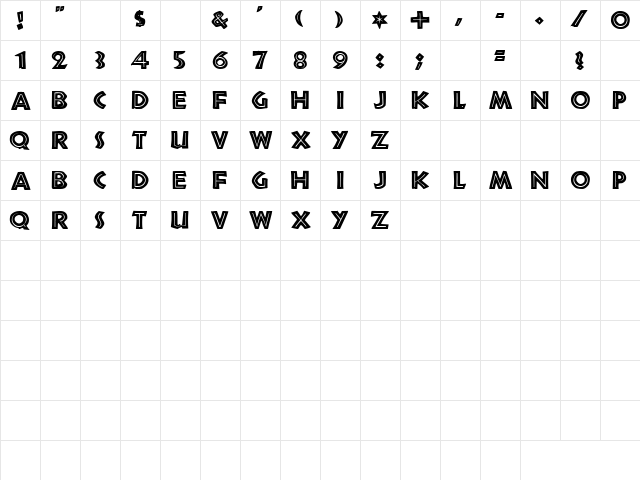
Love Hurts 1 Regular
Love Hurts 1 is a composed and adaptable typeface that performs quietly and consistently across a wide range of design contexts.